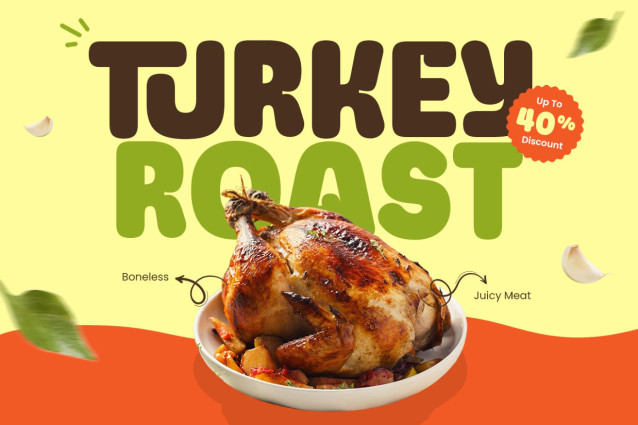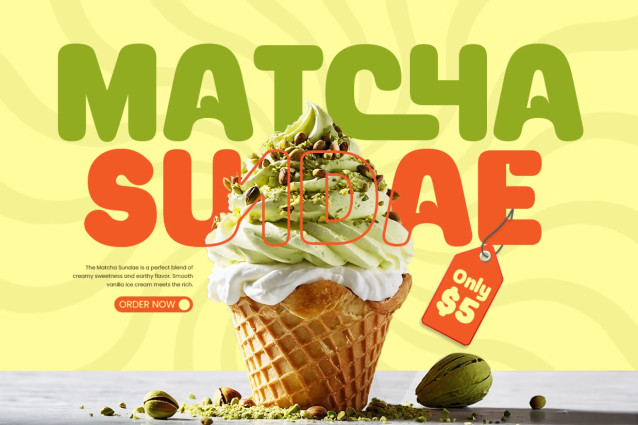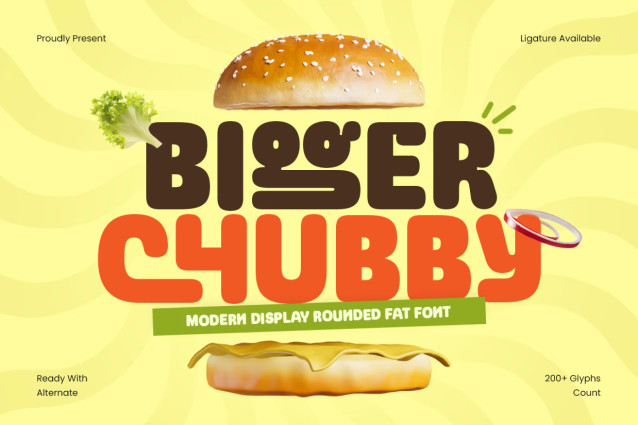
BIGGER CHUBBY is a modern display rounded fat font designed with bold shapes, soft curves, and a playful personality. Its chunky letterforms create a fun and approachable style, making it perfect for designs that need a strong visual impact with a friendly touch.
Ideal for kids branding, food packaging, logos, posters, product labels, social media graphics, and creative campaigns, BIGGER CHUBBY brings a cheerful and energetic feel to every project. The rounded structure and thick strokes make it highly visible and memorable across both digital and print applications.
With its expressive character and modern display style, BIGGER CHUBBY is a versatile choice for designers creating playful identities, fun headlines, merchandise, advertisements, and eye-catching branding materials. This font delivers a balance of boldness, creativity, and approachable charm.
BIGGER CHUBBY – Modern Display Rounded Fat Font Features
Bold rounded letterforms with a fun chubby appearance
Perfect for kids branding, logos, and packaging designs
Playful style with strong visual impact
Ideal for food, lifestyle, and creative projects
Includes uppercase, lowercase, numerals, and punctuation
Great for print, digital, and social media designs
OpenType features for flexible typography options